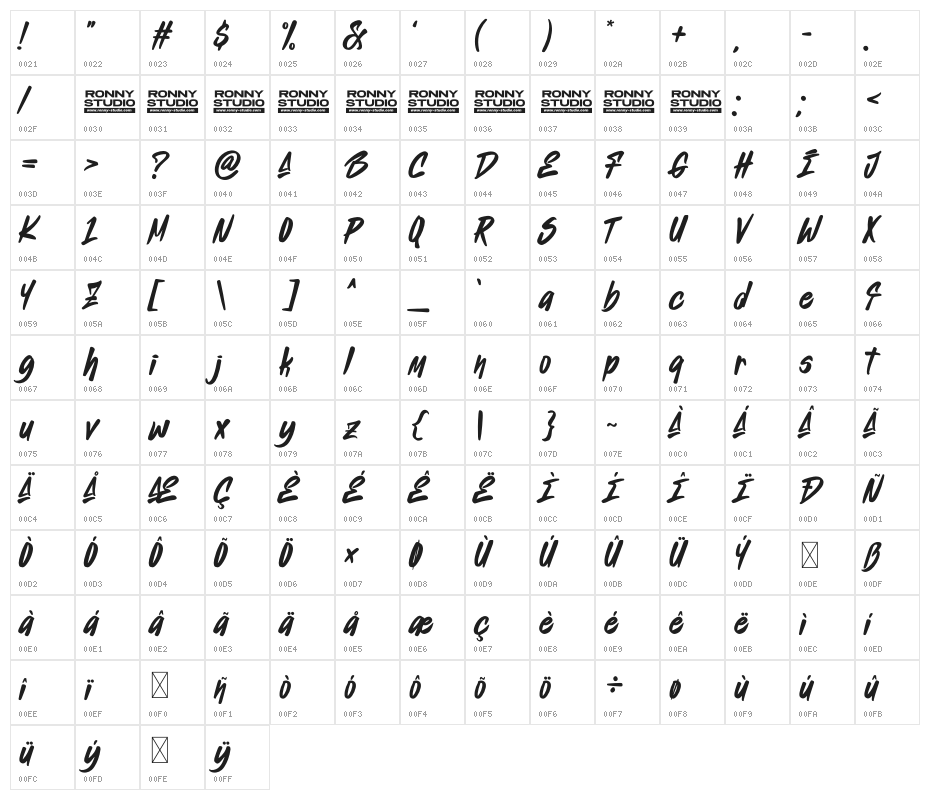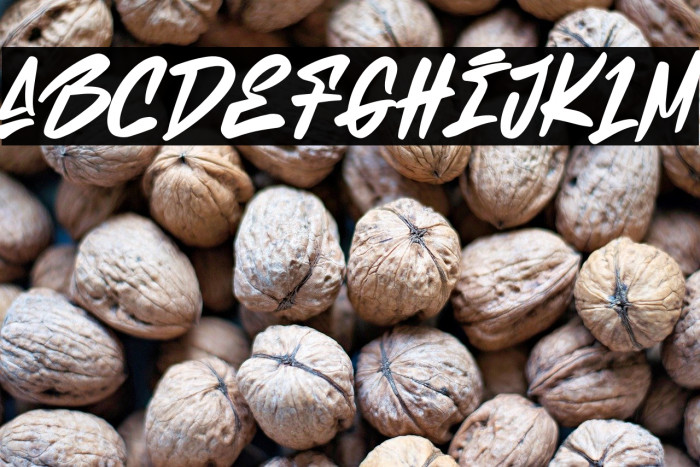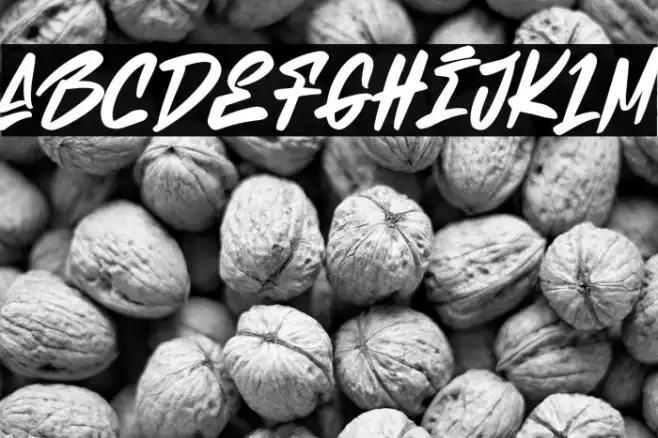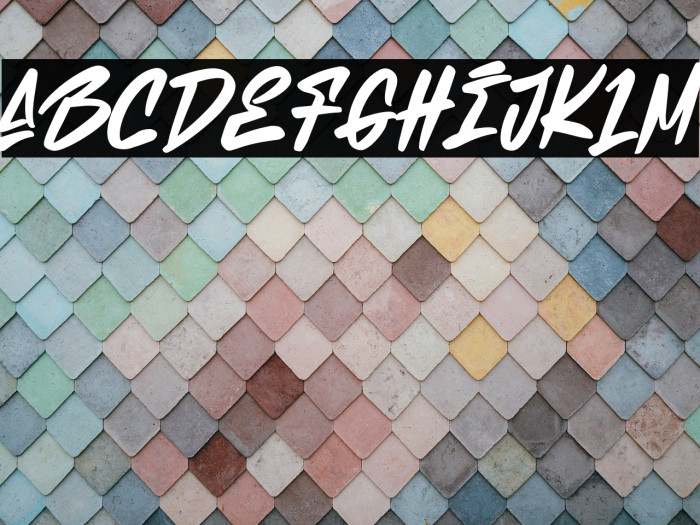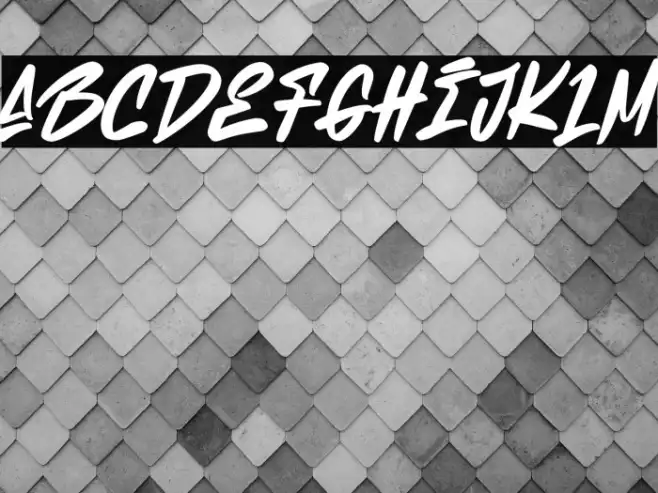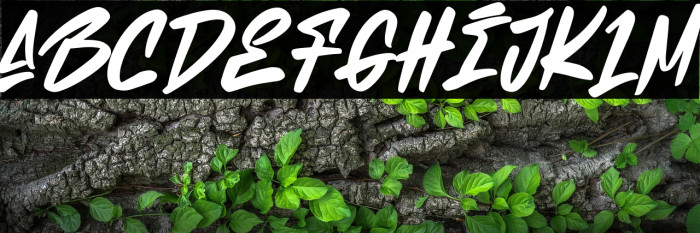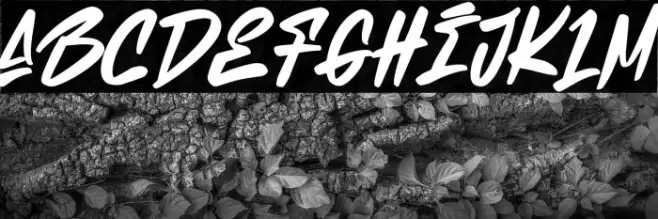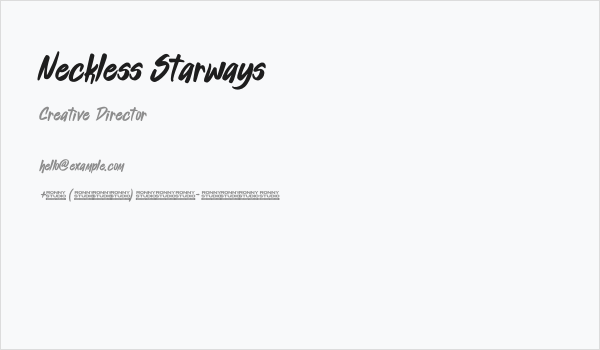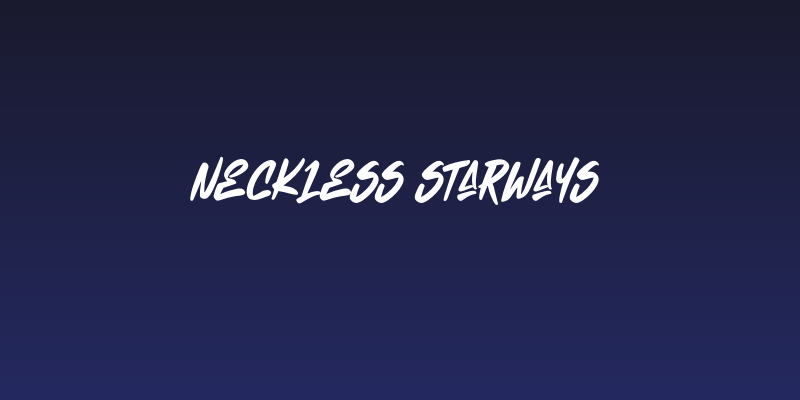
Neckless Starways Font
Neckless Starways Description
This font exhibits a bold and energetic script style, characterized by its dynamic and flowing letterforms. The uppercase and lowercase letters are designed with a sense of motion, featuring sharp angles and smooth curves that create a sense of rhythm and movement. The font's bold weight and slightly condensed width give it a strong presence, making it suitable for impactful designs. The character spacing is tight, enhancing the cohesive look of the text. The font's high contrast in stroke thickness adds to its visual appeal, making it stand out in various applications.
| Proposed Projects | Ideal for branding, posters, and headlines where a strong, energetic presence is desired. |